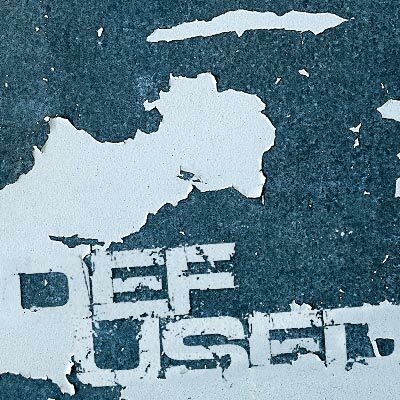
Defused Extended Bold
Defused Extended Bold font by ViNZ of Reticula.net is a free, aggressively distressed sans serif with wide, blocky shapes chewed away by splatters and cracks. The eroded texture gives the letters a rough, industrial energy that feels perfect for loud visuals where subtlety isn’t the goal.
This free font works especially well for posters, album covers, gaming titles, action or horror movie graphics, extreme sports branding, event flyers, and bold t-shirt designs. Defused Extended Bold looks best at large sizes, where the grunge details stay sharp, and it pairs nicely with a clean, narrow sans serif for supporting text and captions.